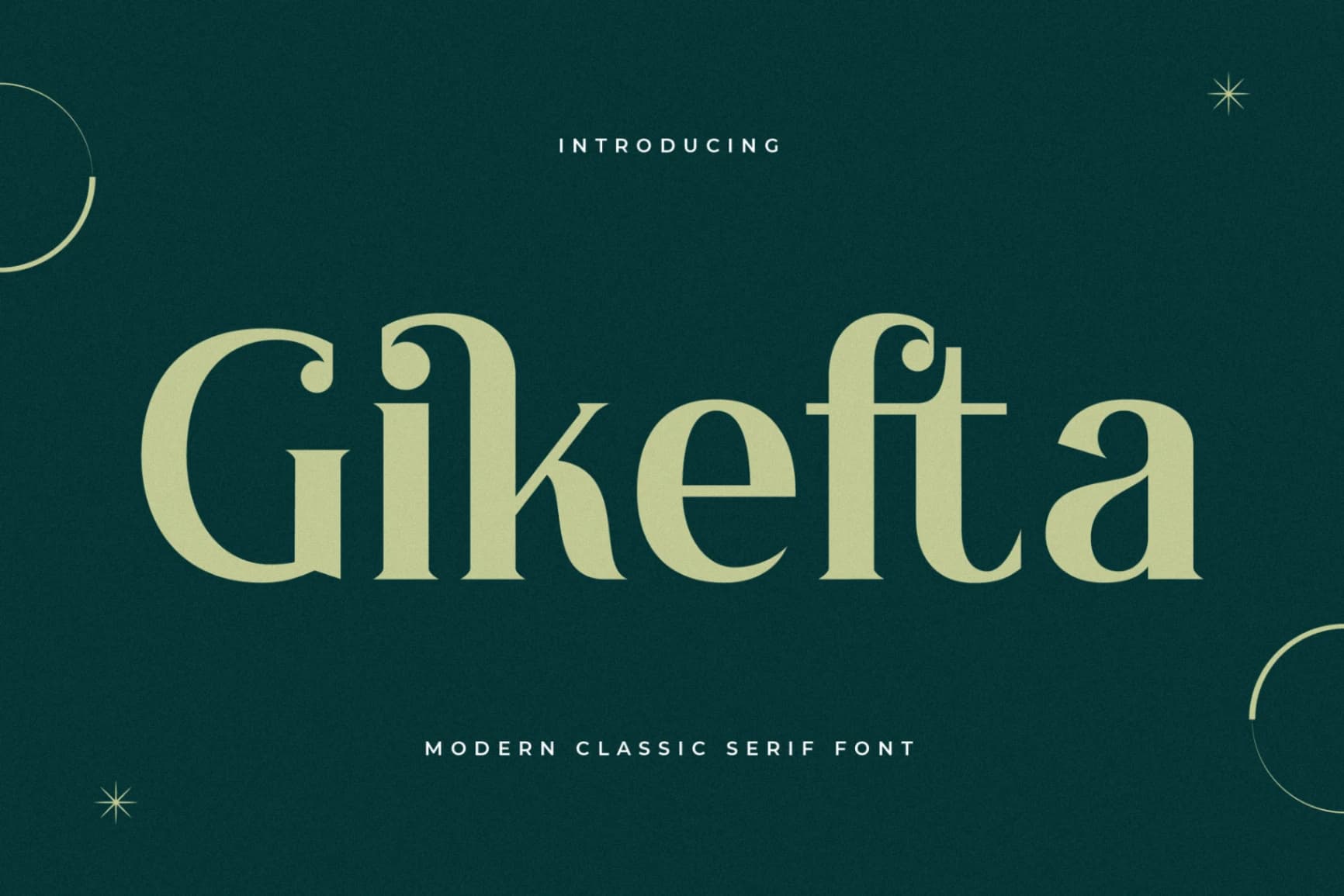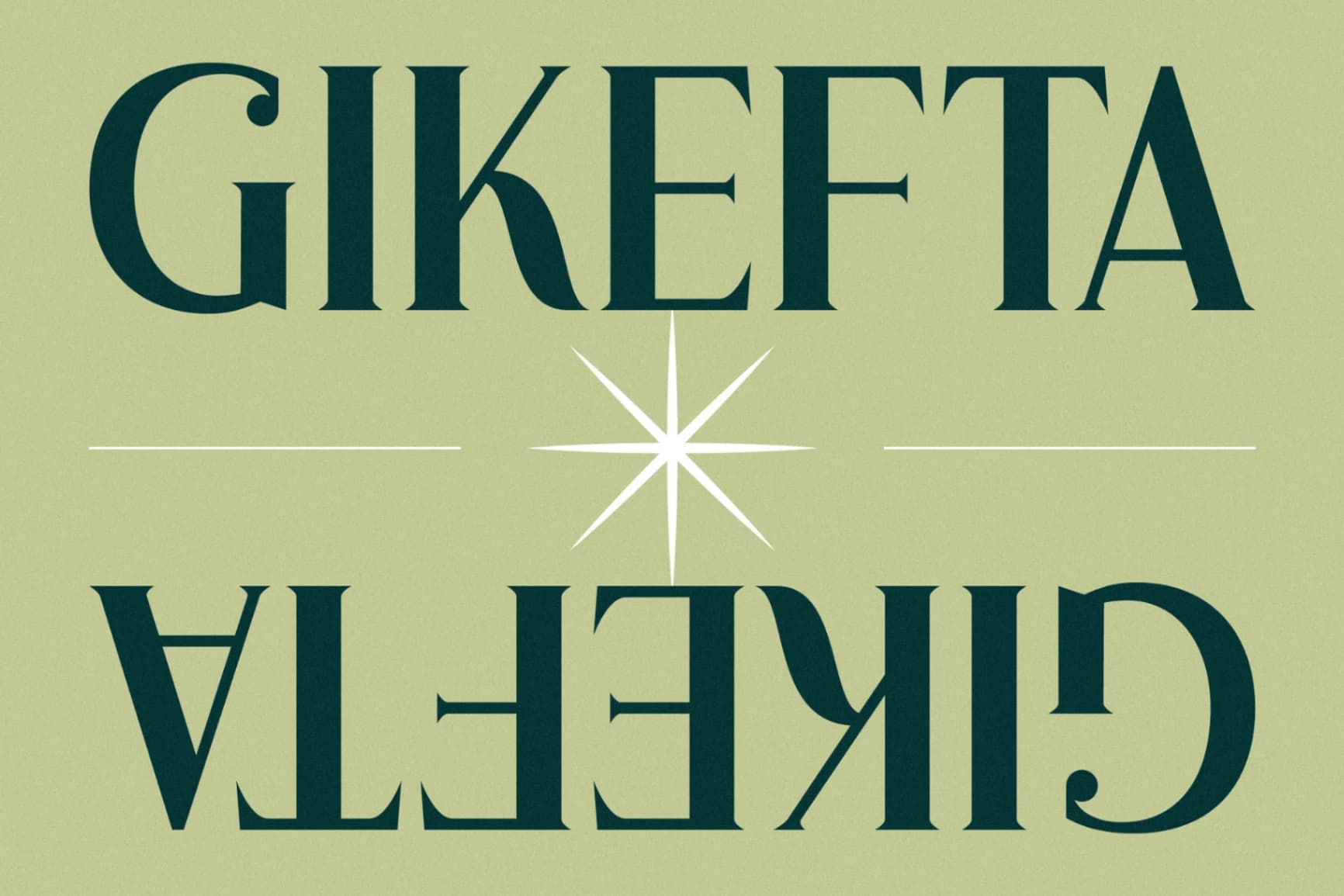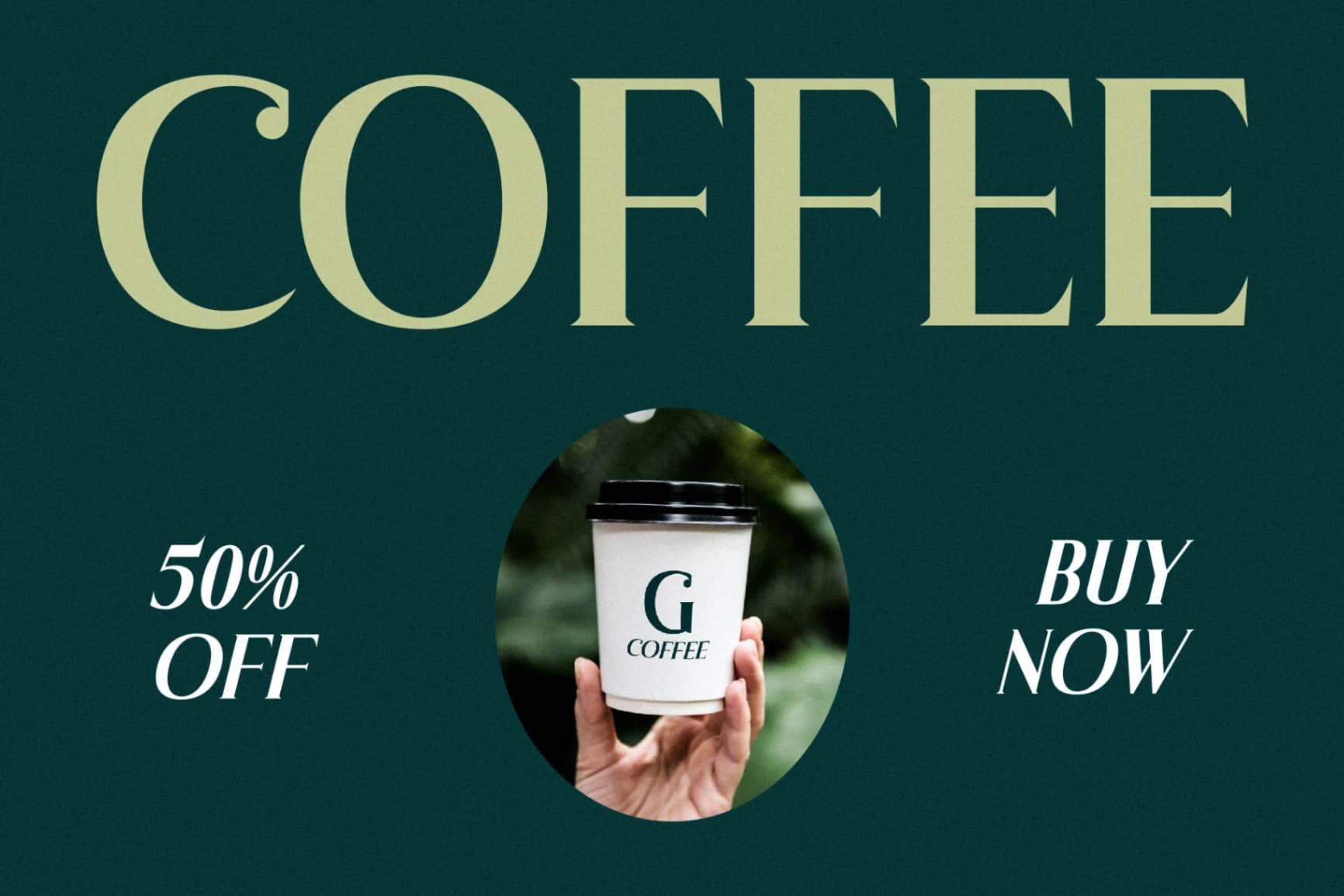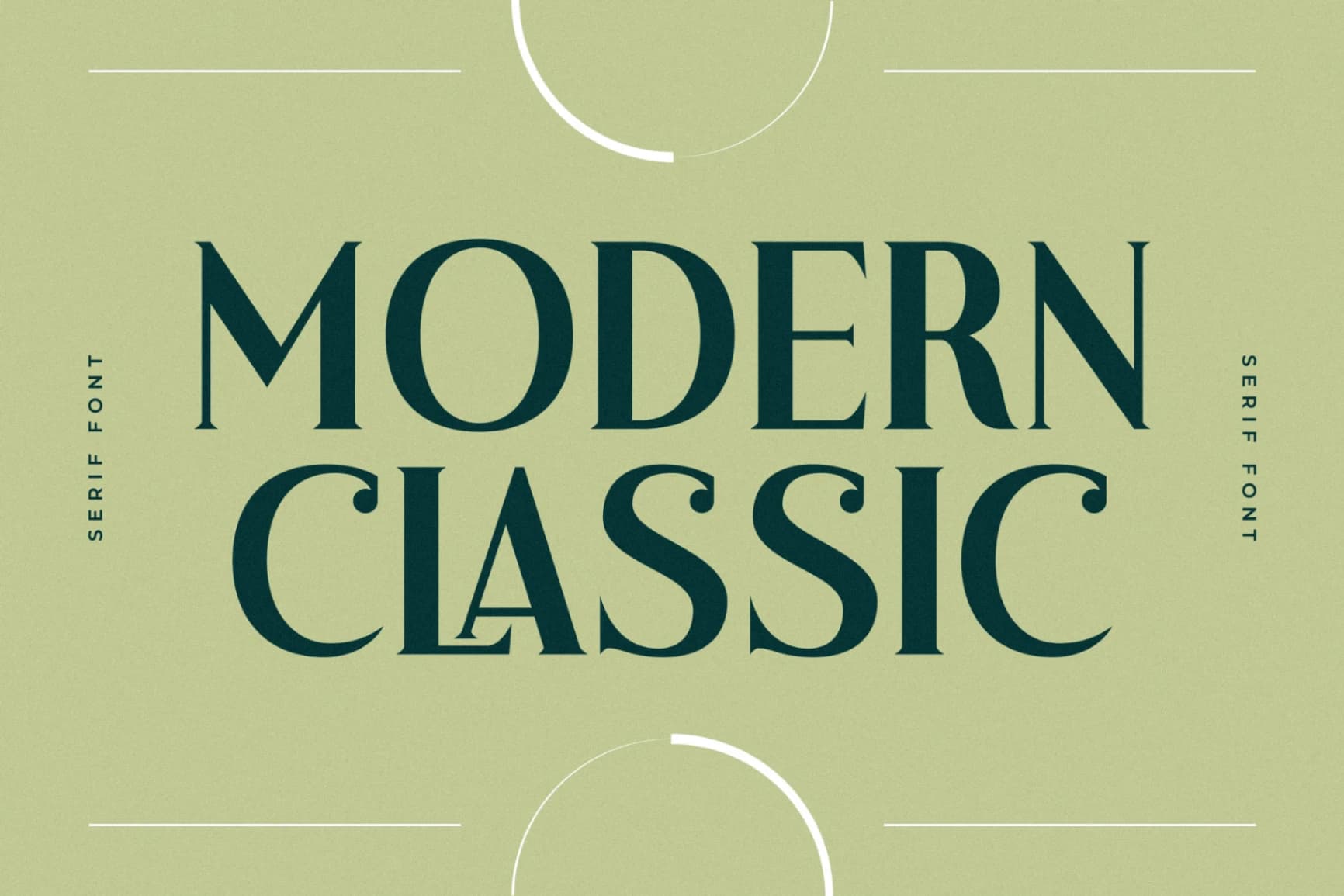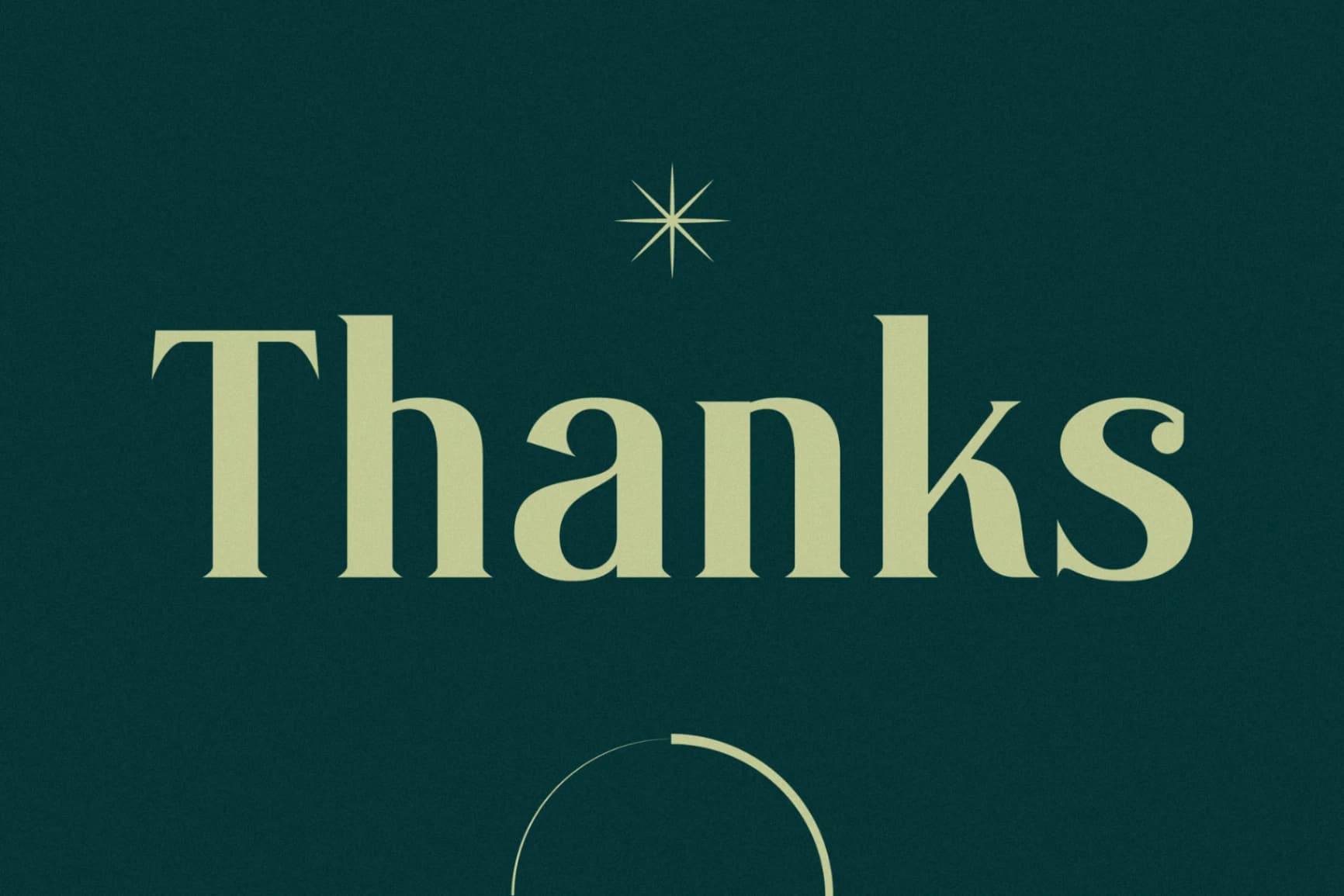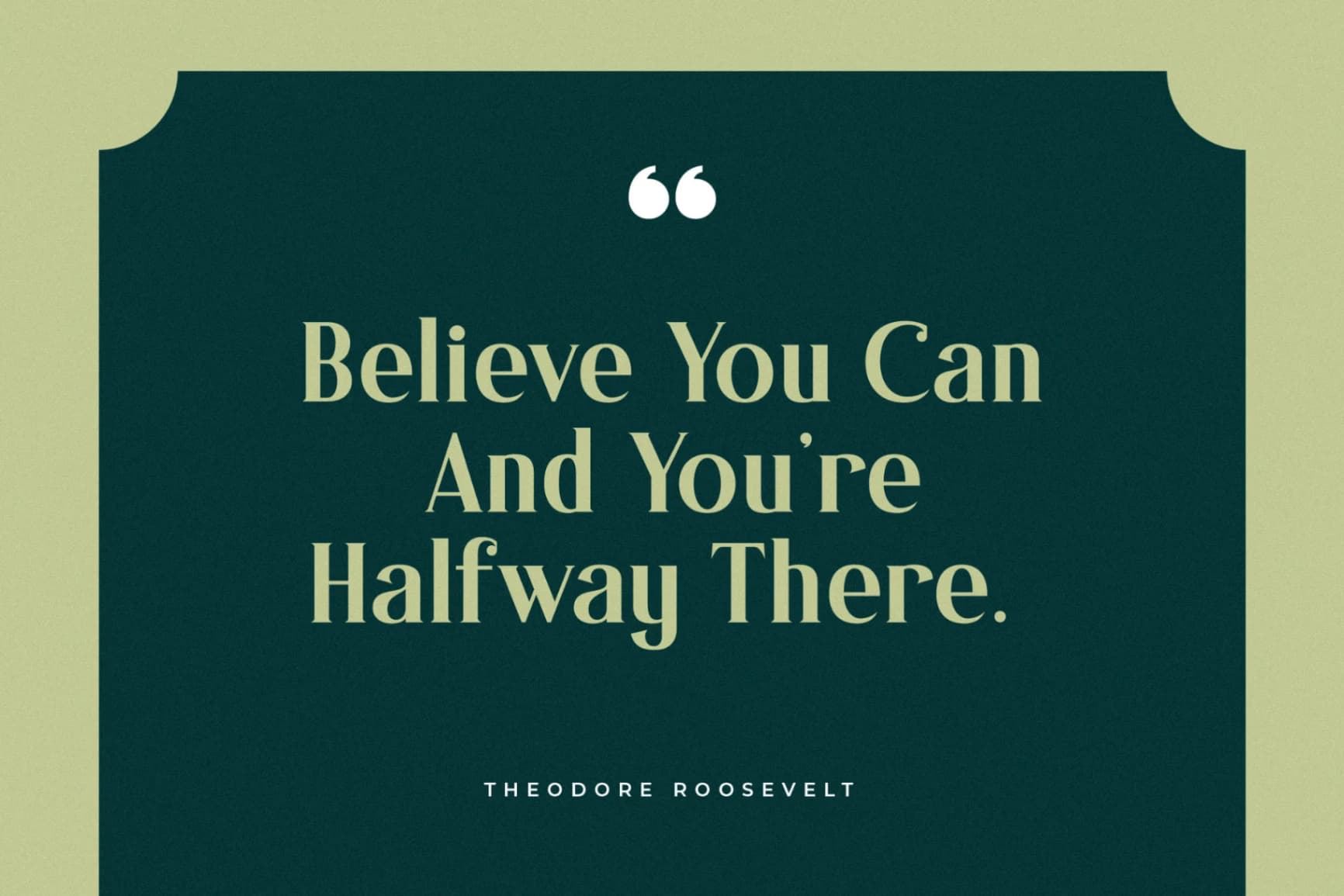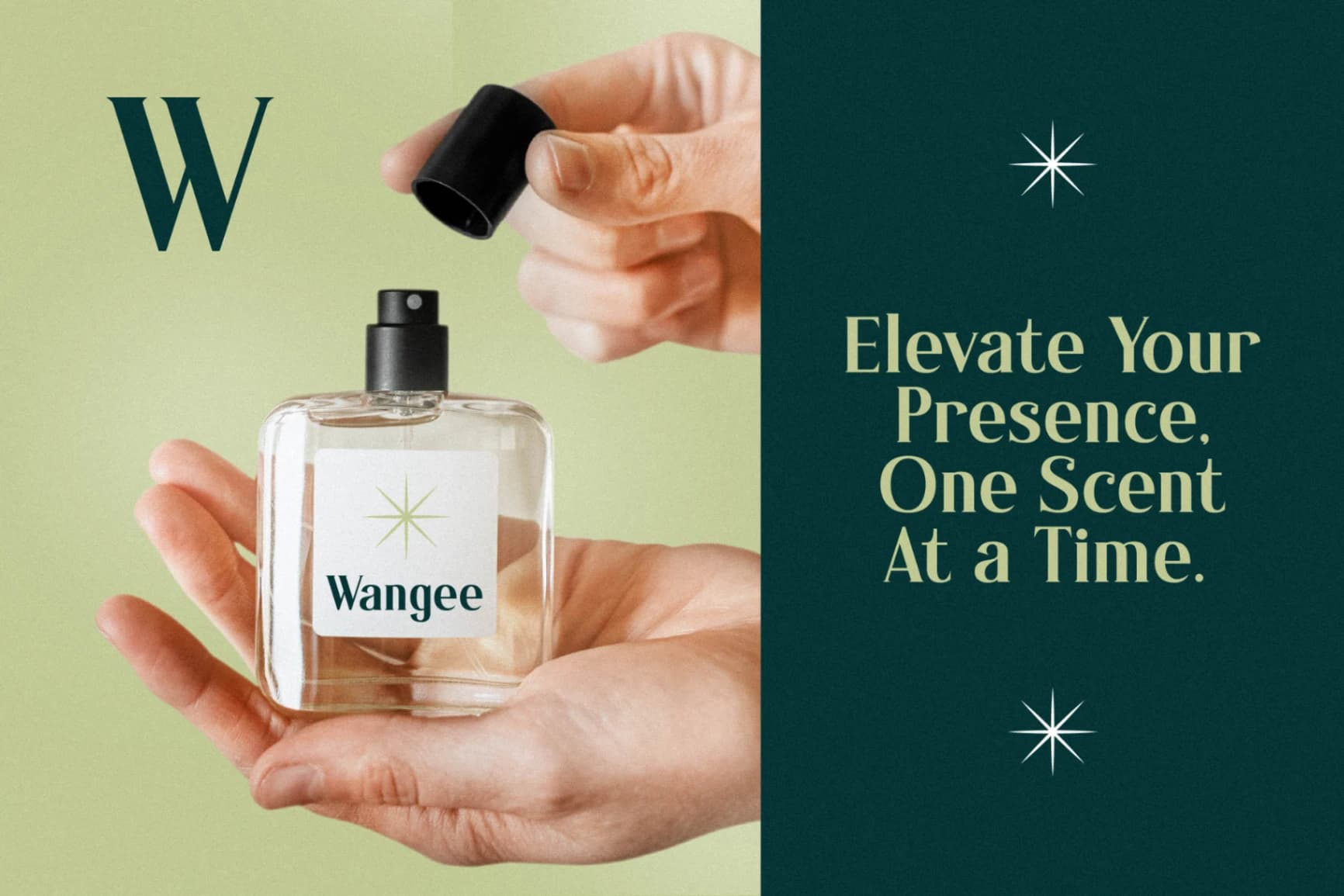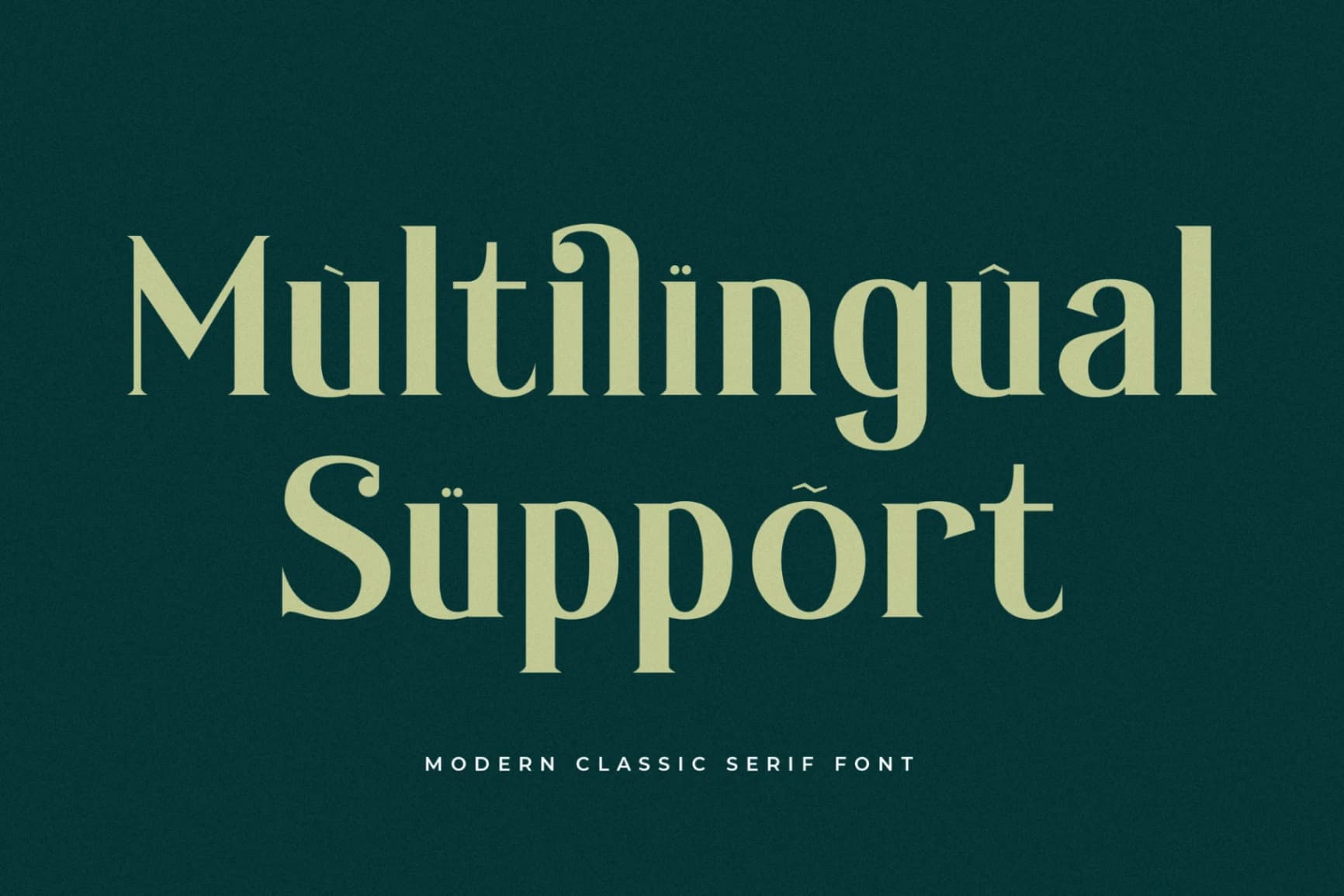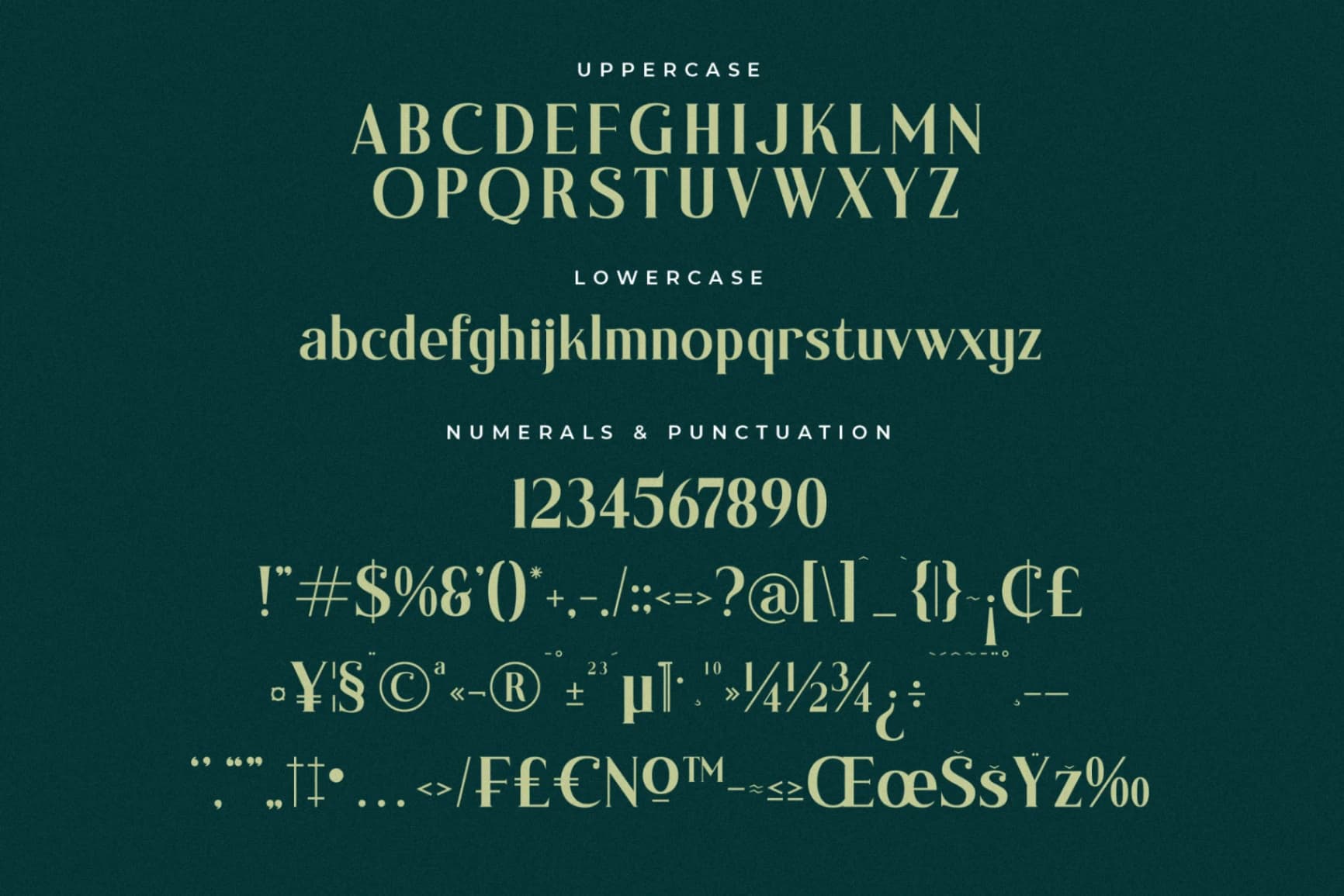
Gikefta – Modern Classic Serif Font
Elevate your design projects with the unparalleled sophistication of Font Gikefta – Modern Classic Serif Font Serif Display. This captivating display serif font masterfully blends modern elegance with classic refinement, featuring a striking high-contrast design that commands attention. Its distinctive serifs and unique character forms create an aesthetic that is both timeless and cutting-edge, ensuring your typography makes an unforgettable visual statement.
Transform your visual identity with a font designed for impact and prestige. Font Gikefta – Modern Classic Serif Font Serif Display is perfect for luxury branding, high-end editorial design, upscale packaging, and fashion or beauty campaigns. Its inherent grace makes it ideal for crafting impactful headlines, magazine layouts, logos, and any project demanding a touch of sophistication and exclusivity.
Reach a wider audience with ease and confidence. With its extensive multilingual support, Font Gikefta – Modern Classic Serif Font Serif Display adapts seamlessly across global markets, making it incredibly versatile for international projects. This comprehensive language coverage ensures your brand communication remains consistent and professional worldwide, enhancing accessibility and reach.
Choose Font Gikefta – Modern Classic Serif Font Serif Display to infuse your work with a truly distinctive aesthetic and superior typographic quality. This font is more than just characters; it's an investment in elevating your design projects, ensuring every piece conveys professionalism and leaves an unforgettable impression. Unleash its potential and set a new standard for elegance in your creative endeavors.